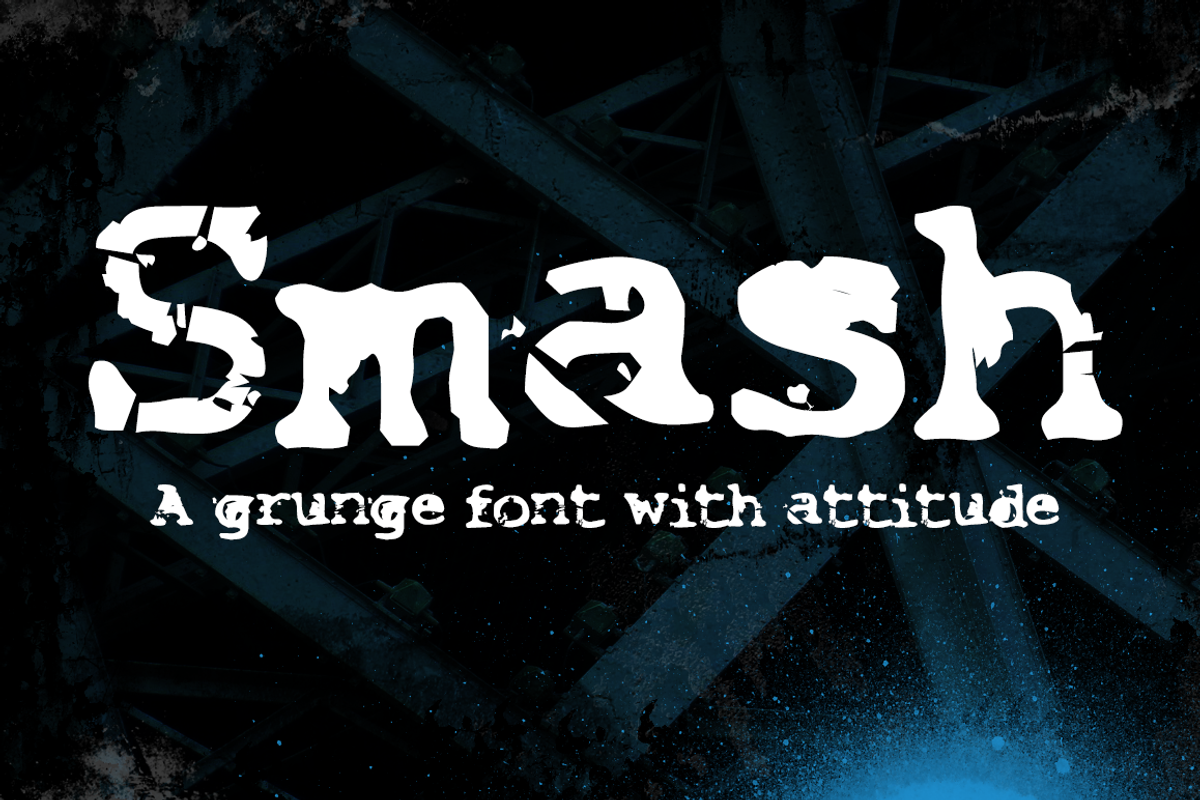
Please note, to use this font for commercial purposes, you must purchase the full version. Smash is a bold and striking font designed to make a statement. With its sharp edges and powerful design, this font is perfect for logos, branding, posters, and other high-impact projects. Whether you're creating a dynamic brand, an exciting event poster, or an attention-grabbing advertisement, Smash adds energy and strength to your work. Test it out and enjoy free download access for personal use. Experience the power and impact of Smash Font Free Download before purchasing the commercial license. Add a strong, bold touch to your designs with Smash.